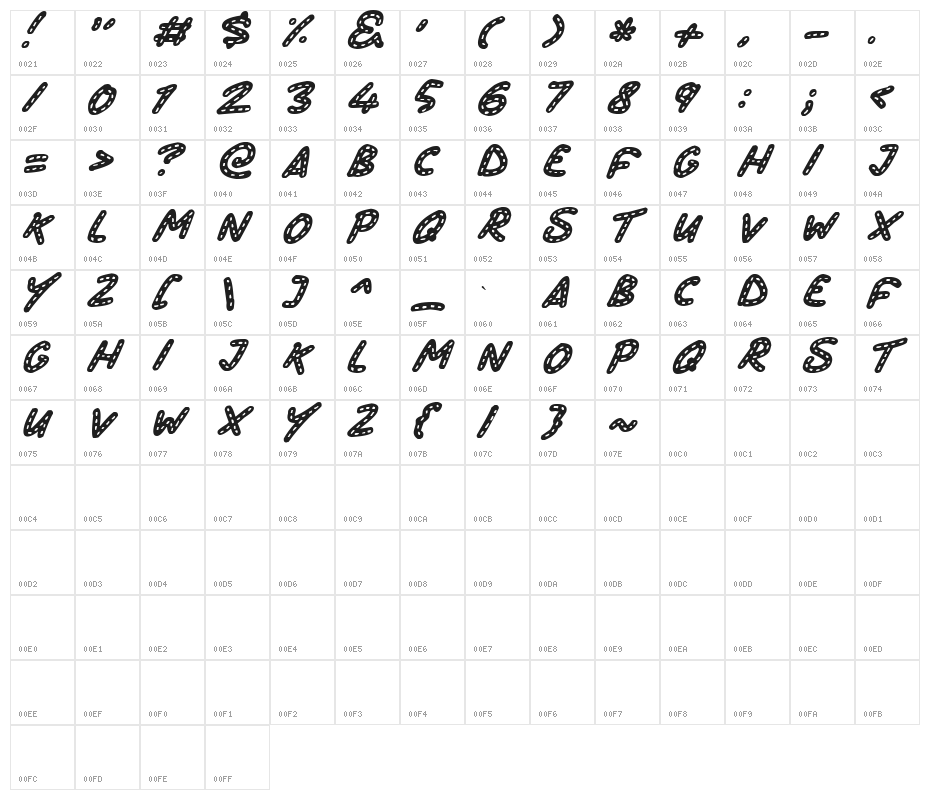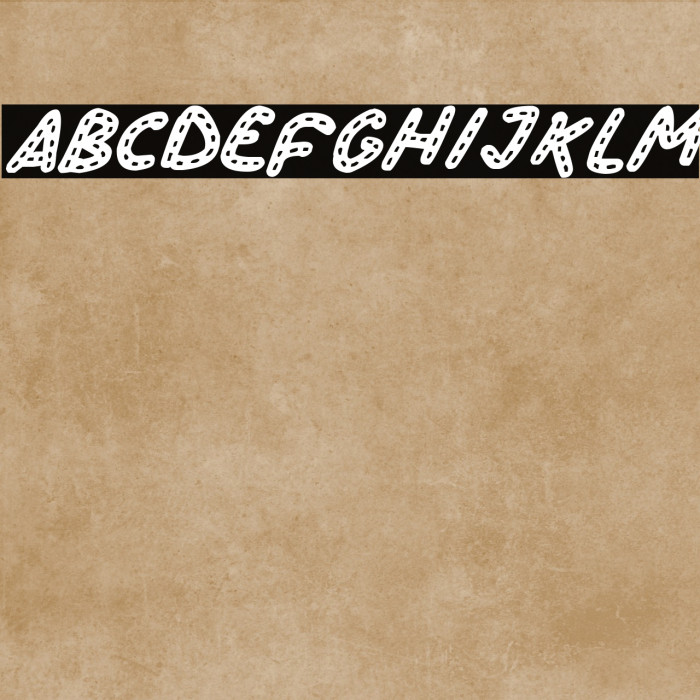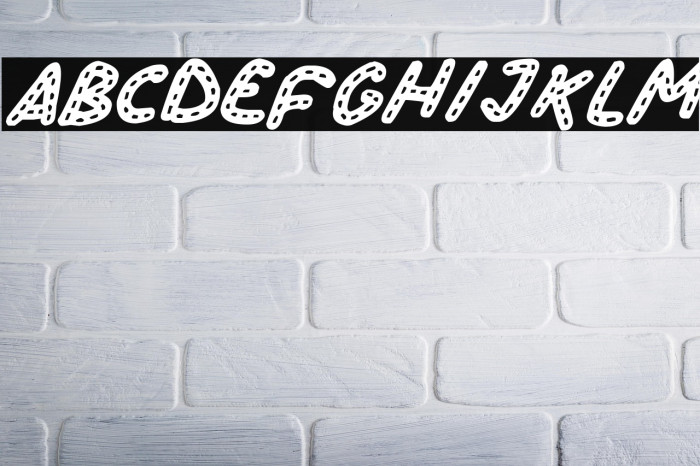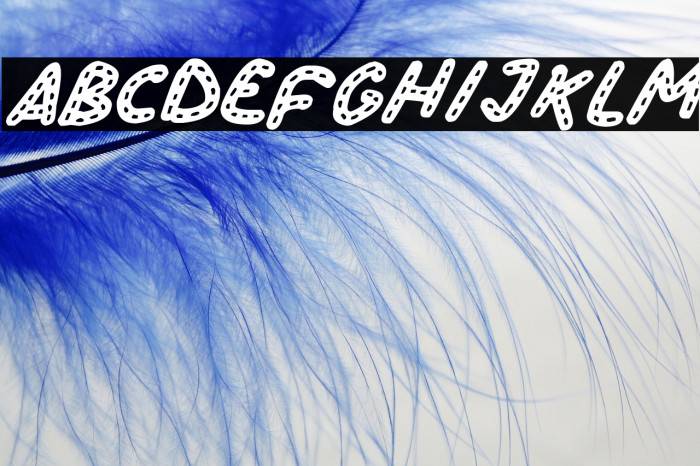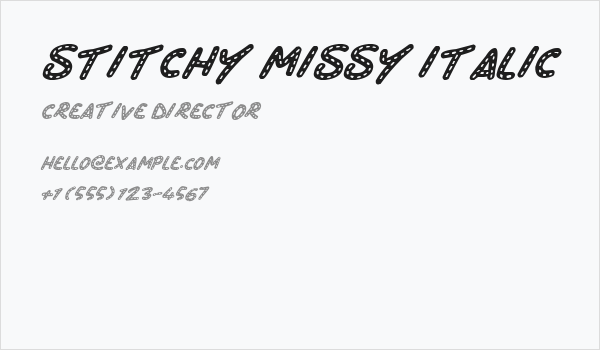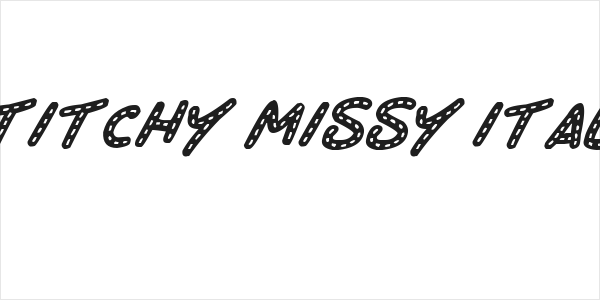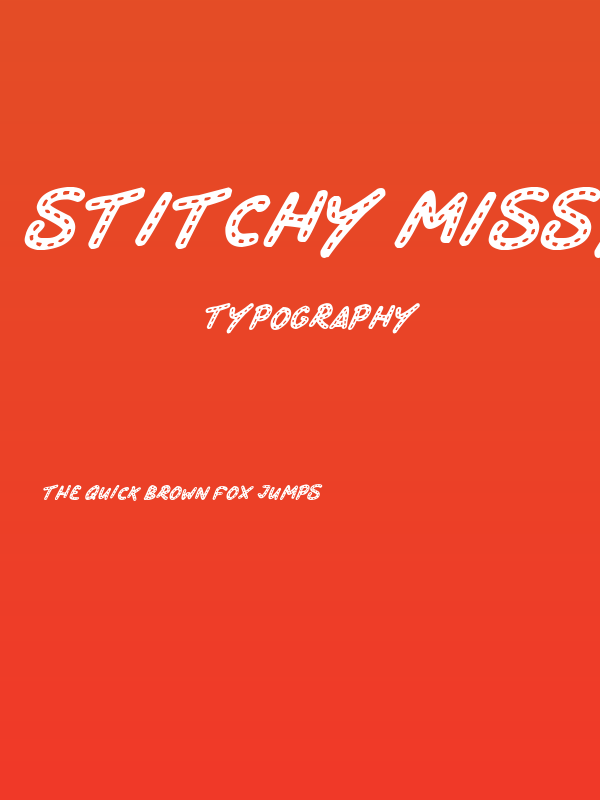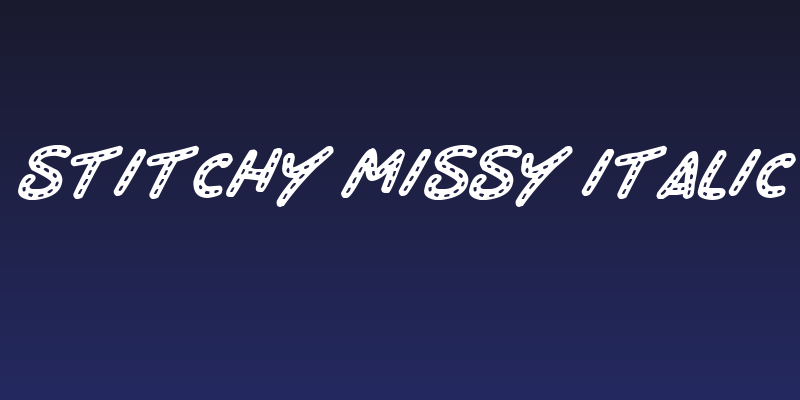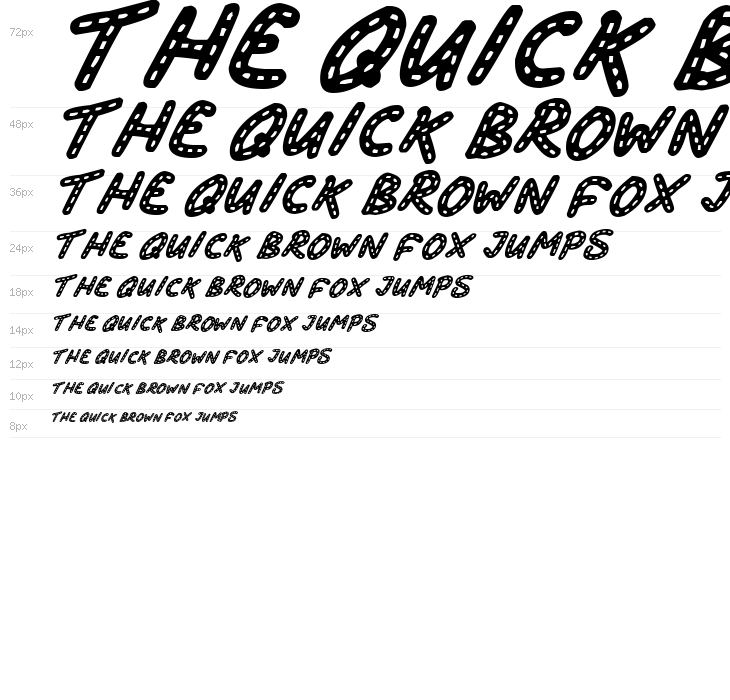
Stitchy Missy Italic Font
Stitchy Missy Italic Description
This font features a playful and whimsical design, characterized by its dotted pattern within each letterform. The strokes are bold and rounded, giving it a friendly and approachable appearance. The italic slant adds a dynamic and lively feel, making it suitable for creative and informal projects. The font includes a full set of uppercase and lowercase letters, numerals, and a variety of special characters, all maintaining the same decorative style. Its unique design makes it stand out, perfect for capturing attention in headlines or logos.
| Use Case | Headlines, Logos, Creative Projects |
| Proposed Projects | Ideal for children's book covers, playful branding, party invitations, and creative posters. |